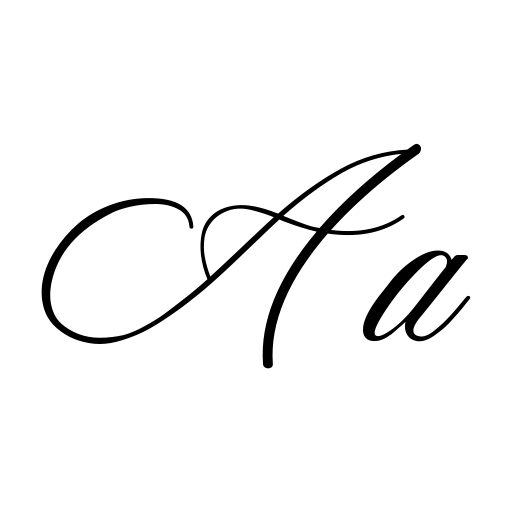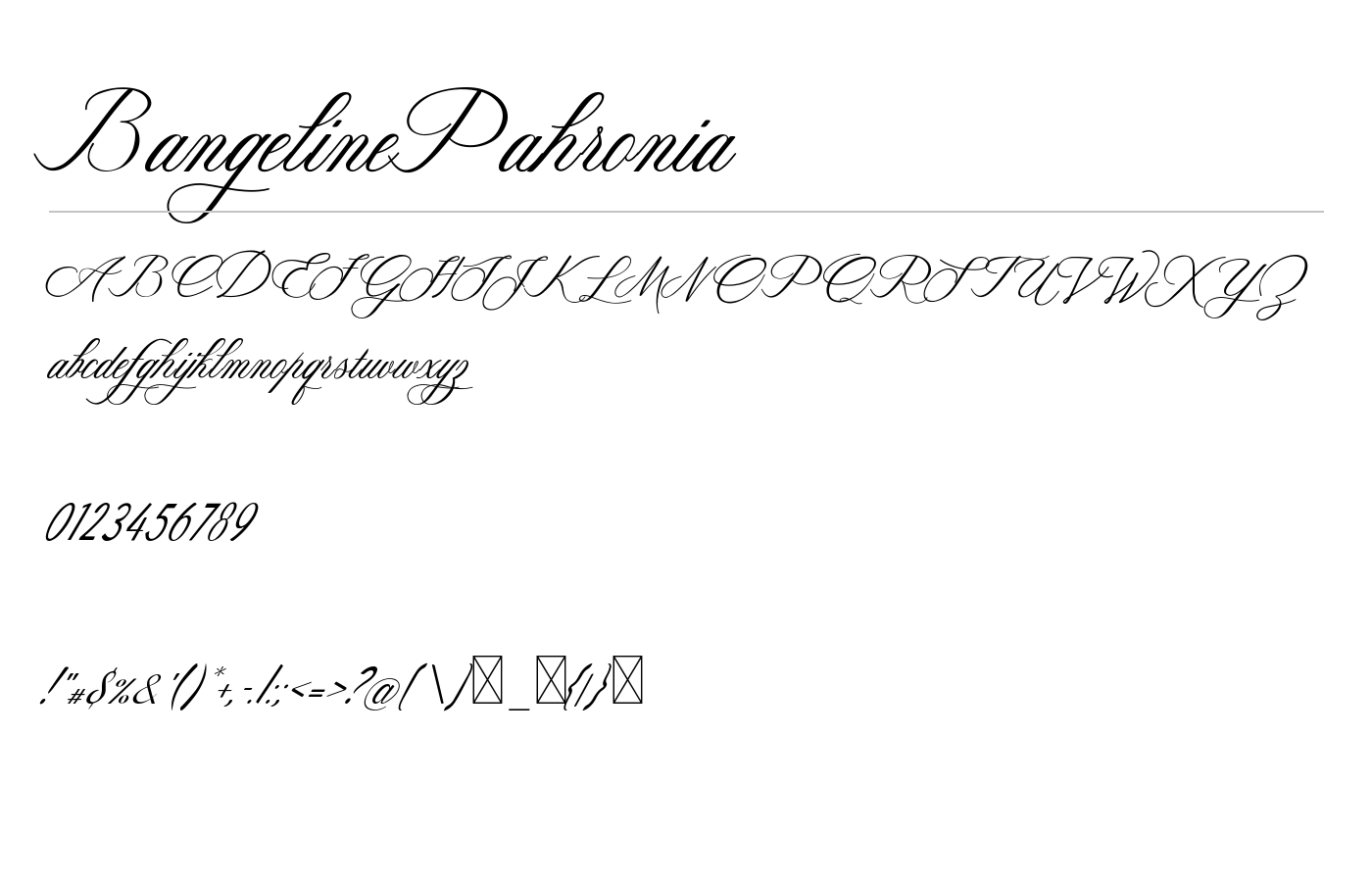
BangelinePahronia is an elegant script font characterized by its delicate, flowing strokes and high contrast between thin and slightly thicker lines, giving it a refined and graceful appearance. Its slender, cursive letterforms with ornate flourishes and smooth connections evoke a classic, sophisticated feel perfect for luxury branding, invitations, and stylish headlines. This font lends a sense of timeless beauty and sophistication, making it ideal for designs that require a touch of elegance and charm.
BangelinePahronia Font